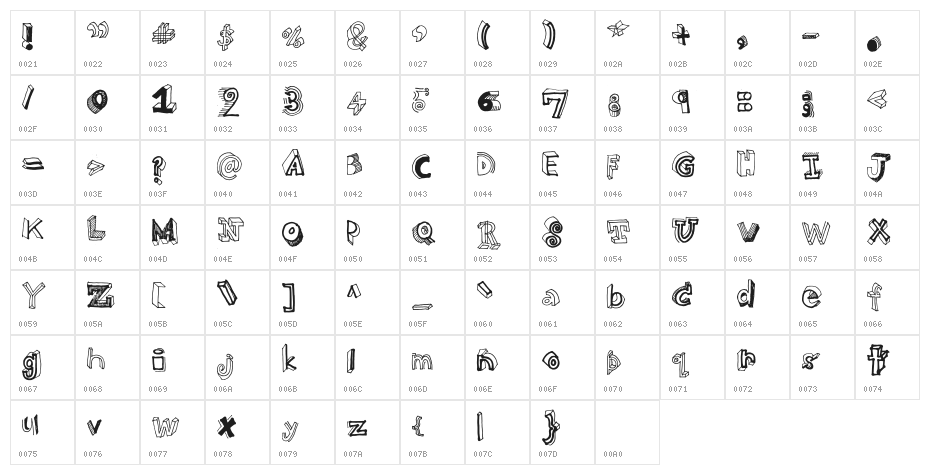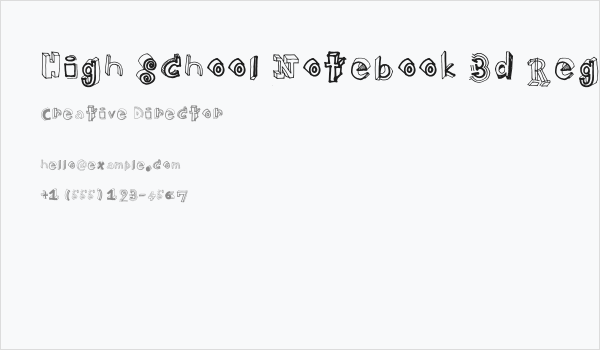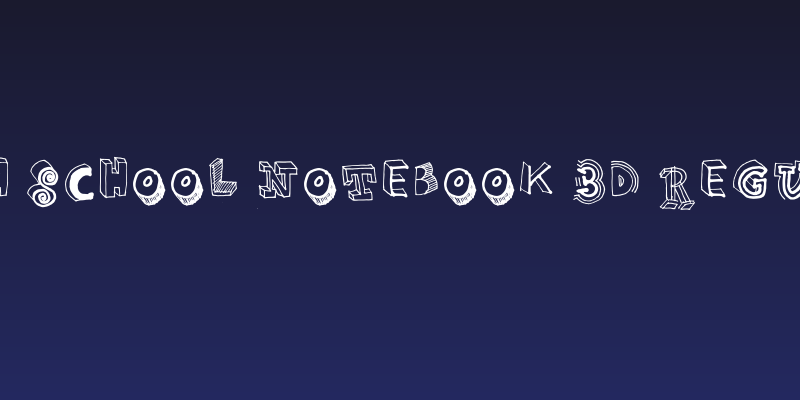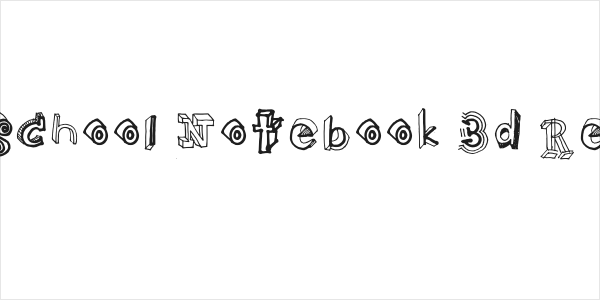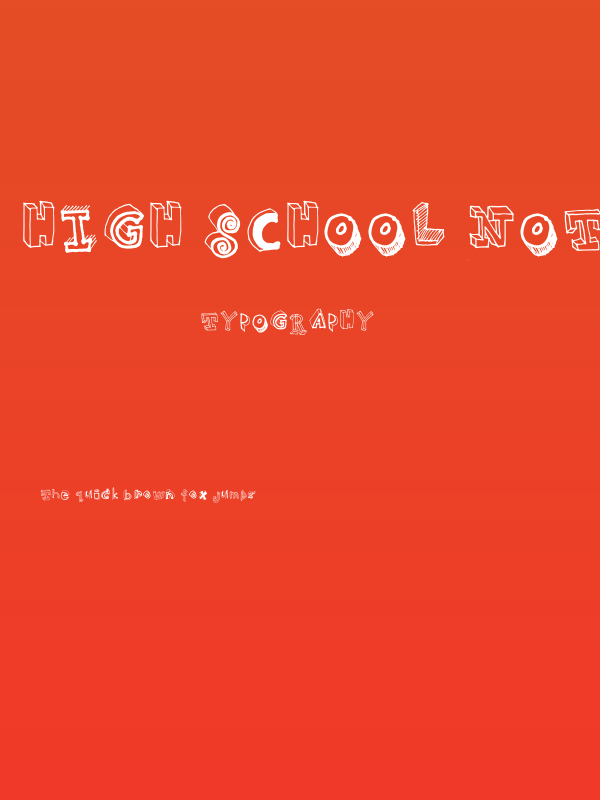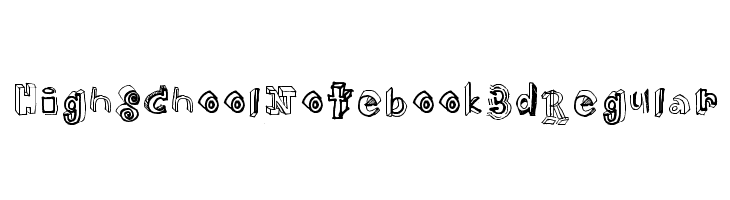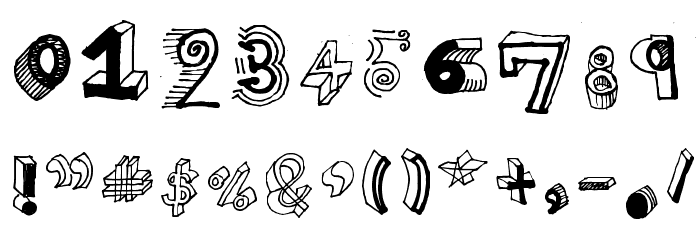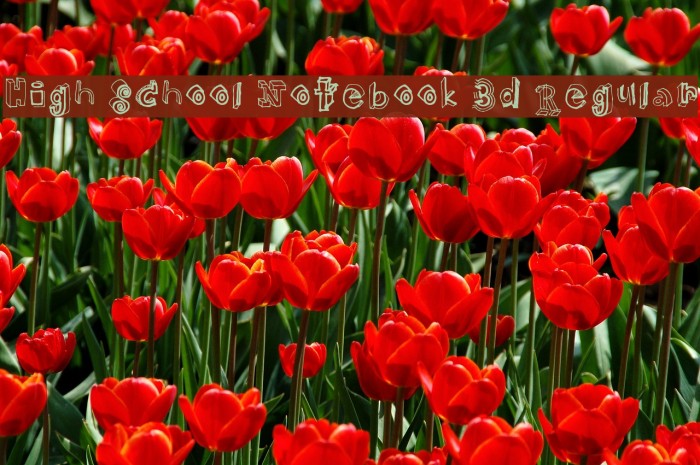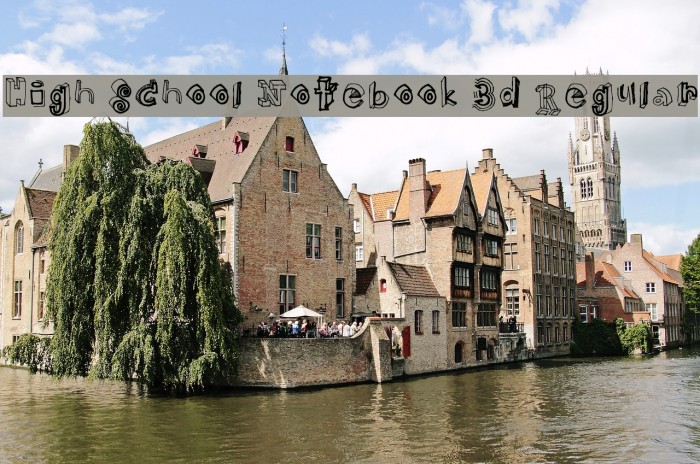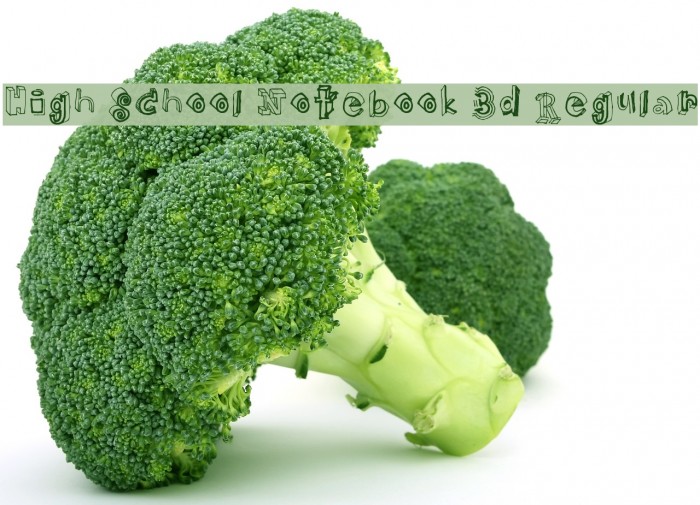
High School Notebook 3d Regular Font
High School Notebook 3d Regular Description
This font features a playful and hand-drawn style, reminiscent of doodles in a high school notebook. Each character is uniquely crafted with a three-dimensional effect, giving it a lively and dynamic appearance. The letters are bold and irregular, with varying line thicknesses and quirky embellishments that add to its whimsical charm. The numbers and special characters follow the same playful aesthetic, making the font suitable for creative and informal designs. Its sketch-like quality and artistic flair make it stand out, perfect for projects that require a fun and engaging visual element.
| Proposed Projects | Ideal for children's books, comic strips, creative posters, and school-related materials. |